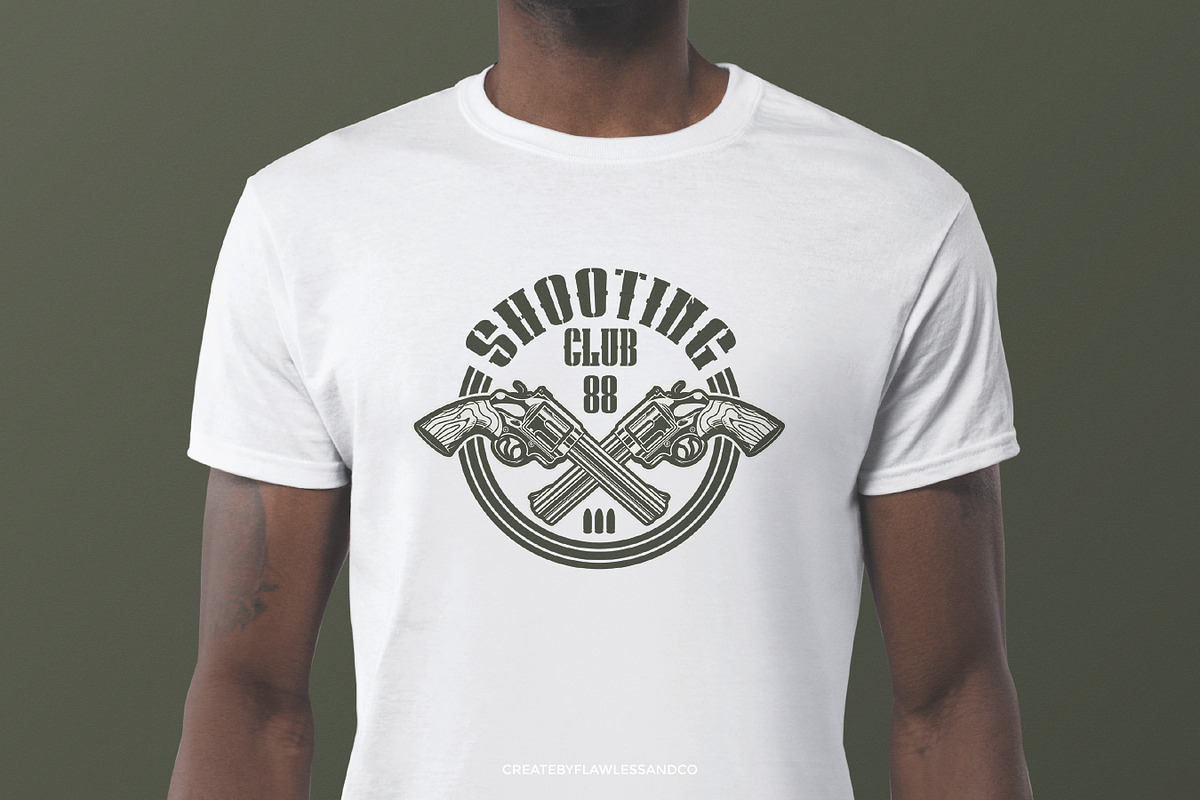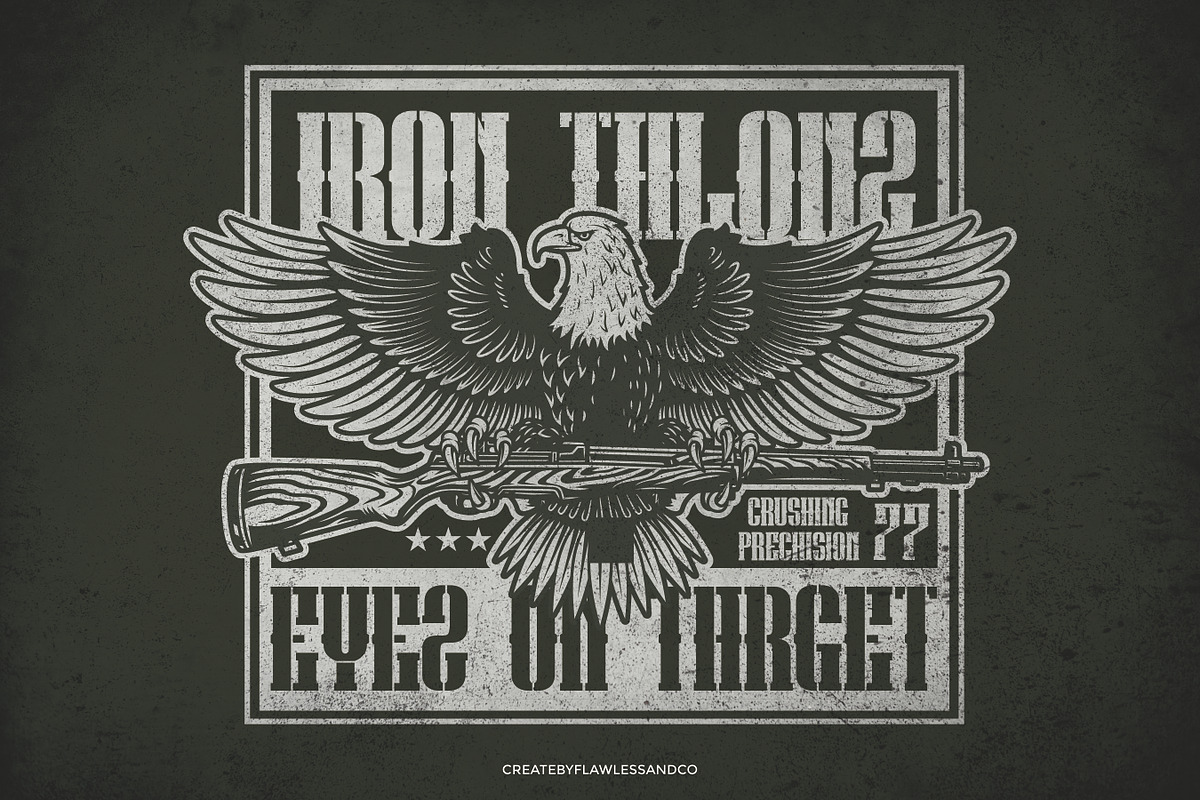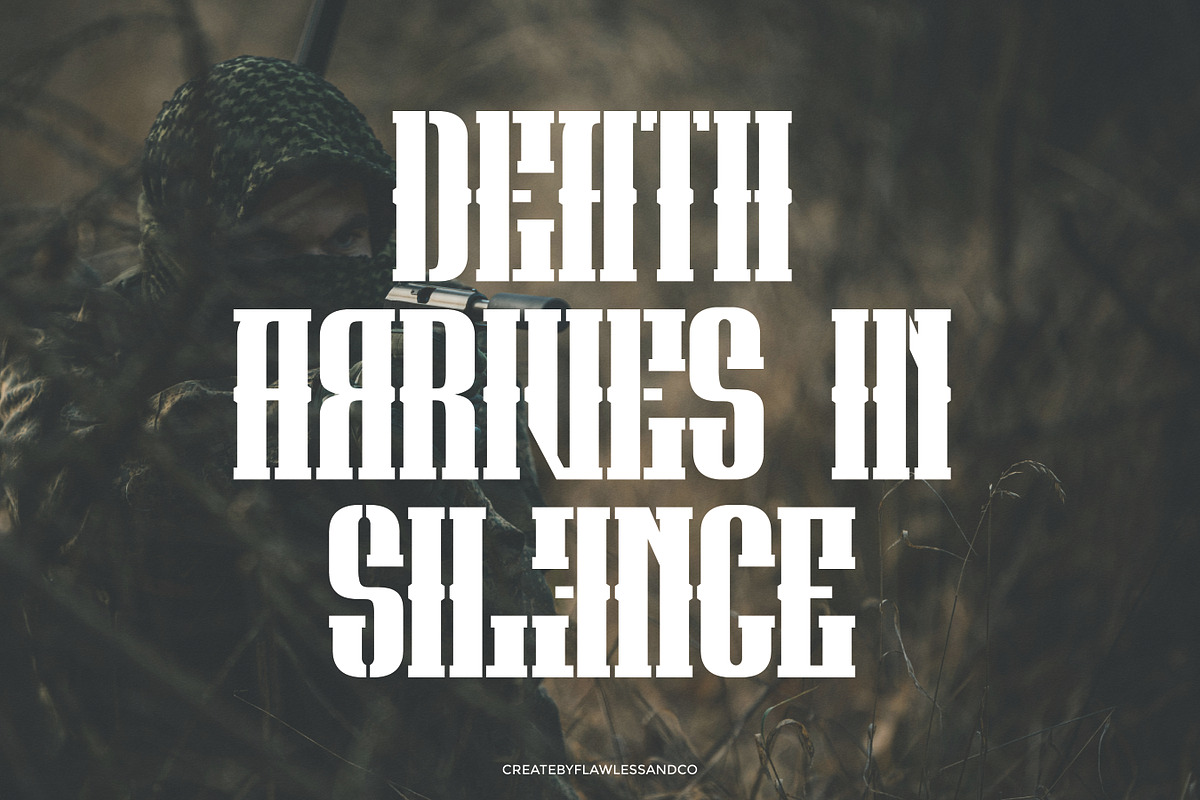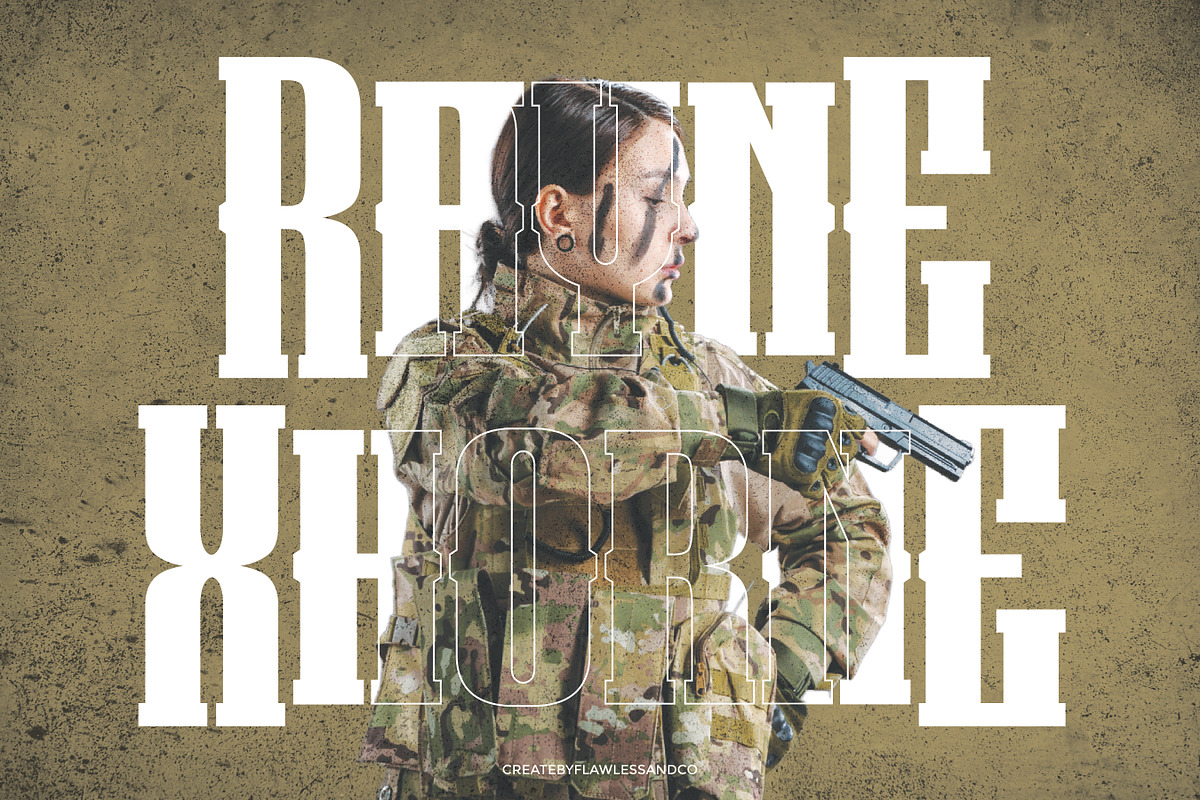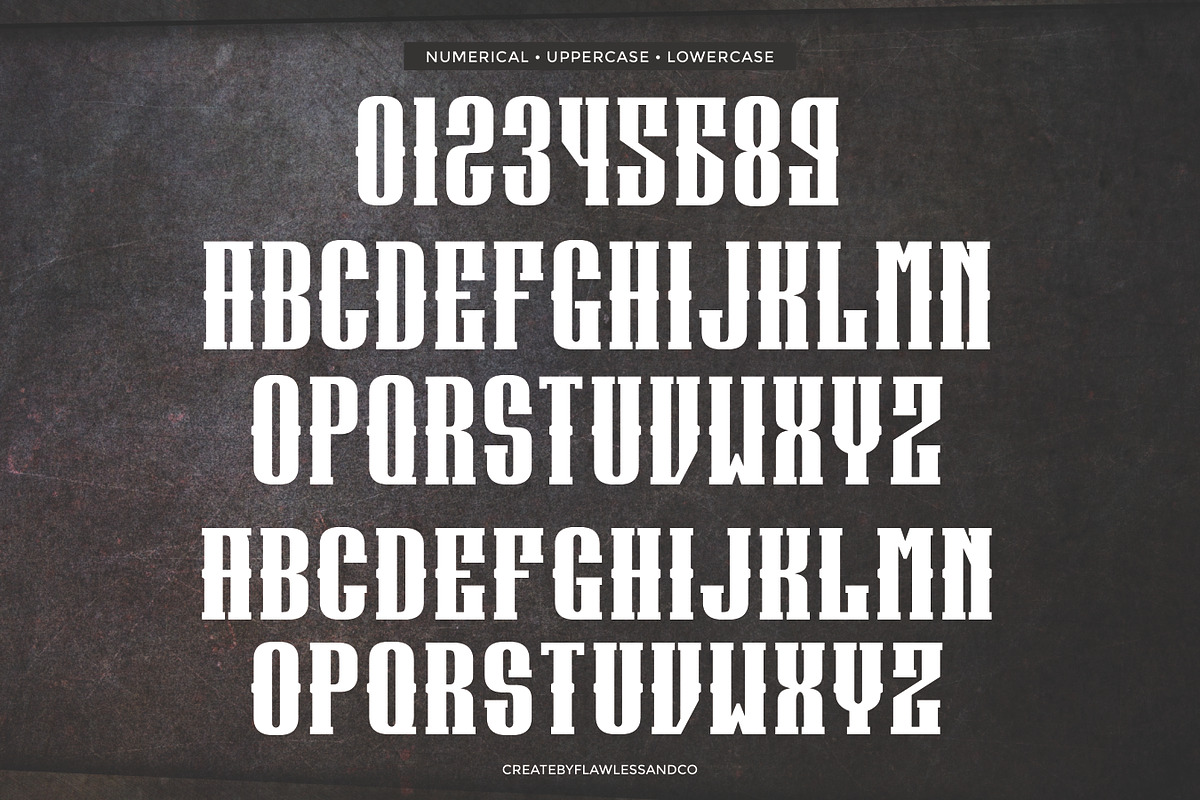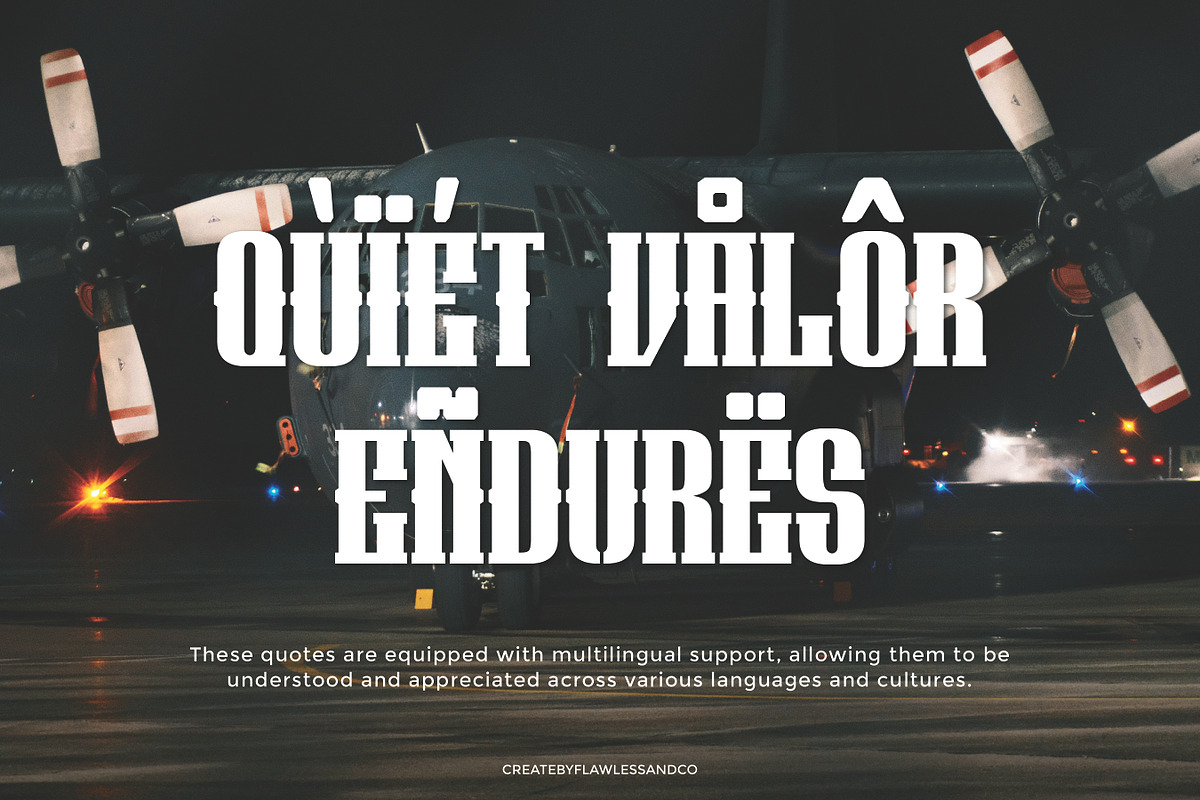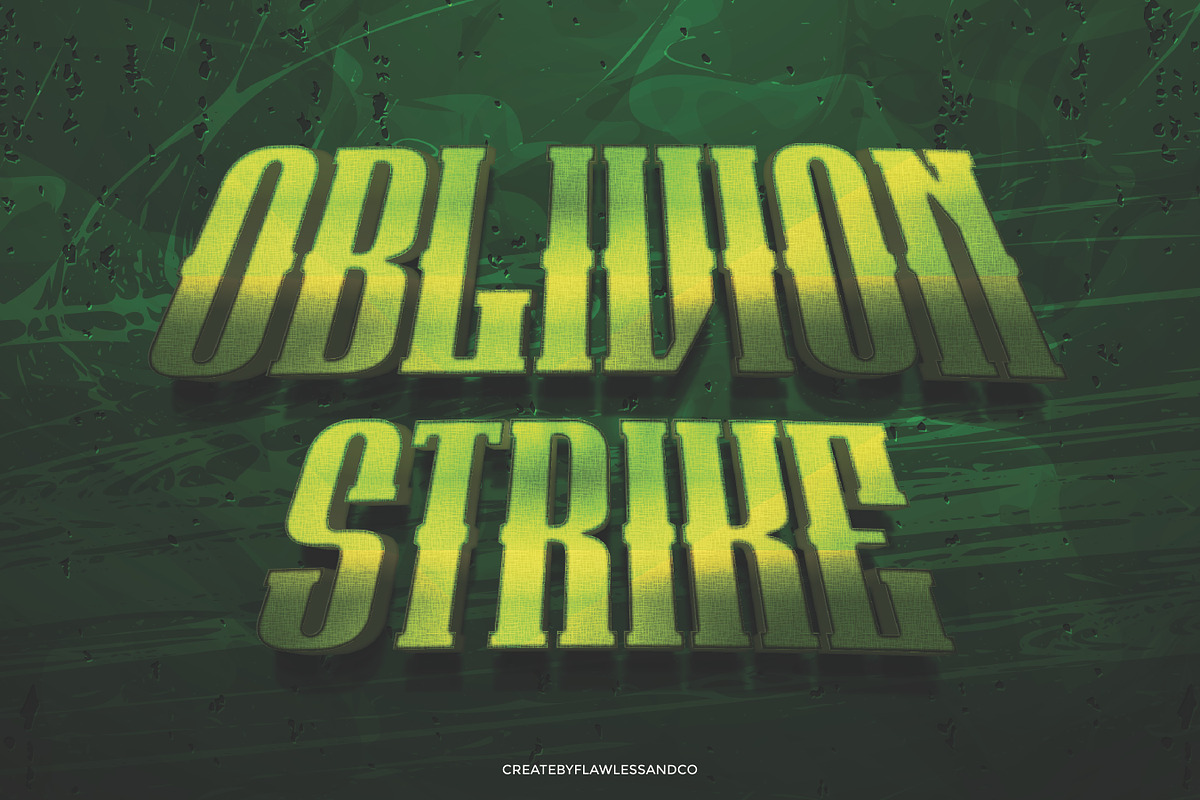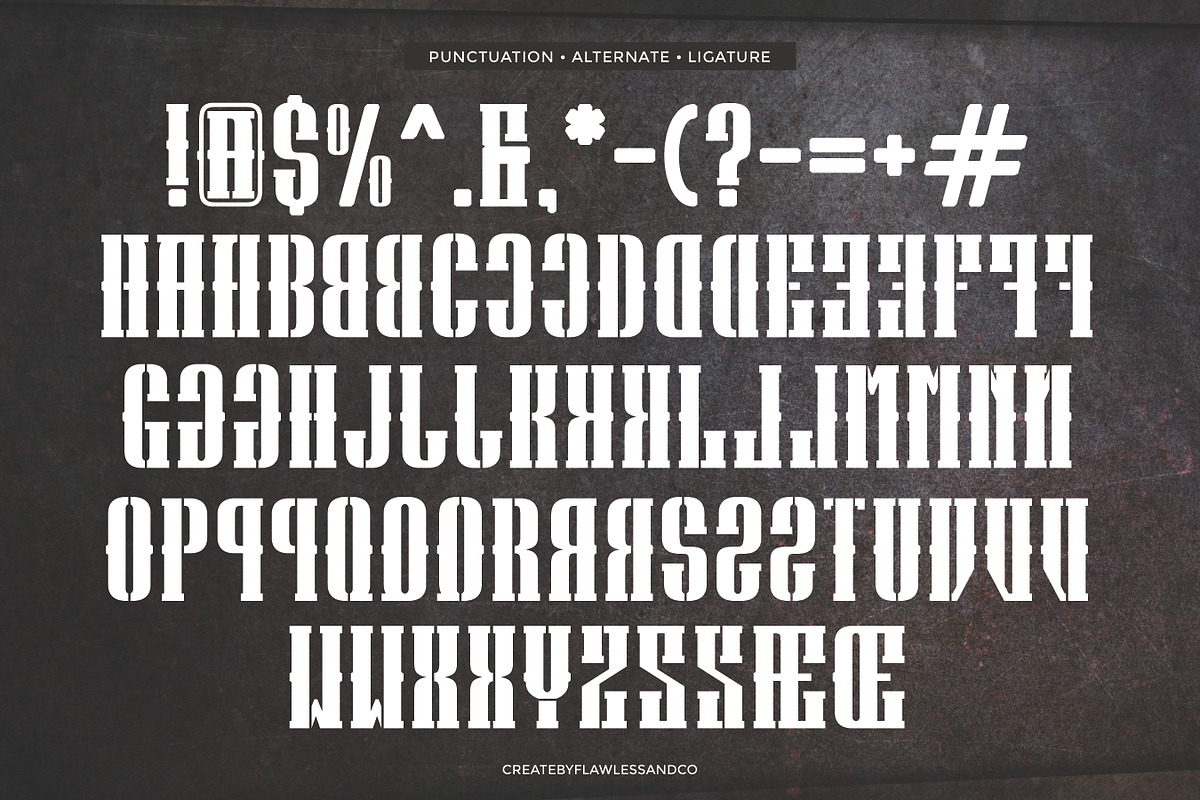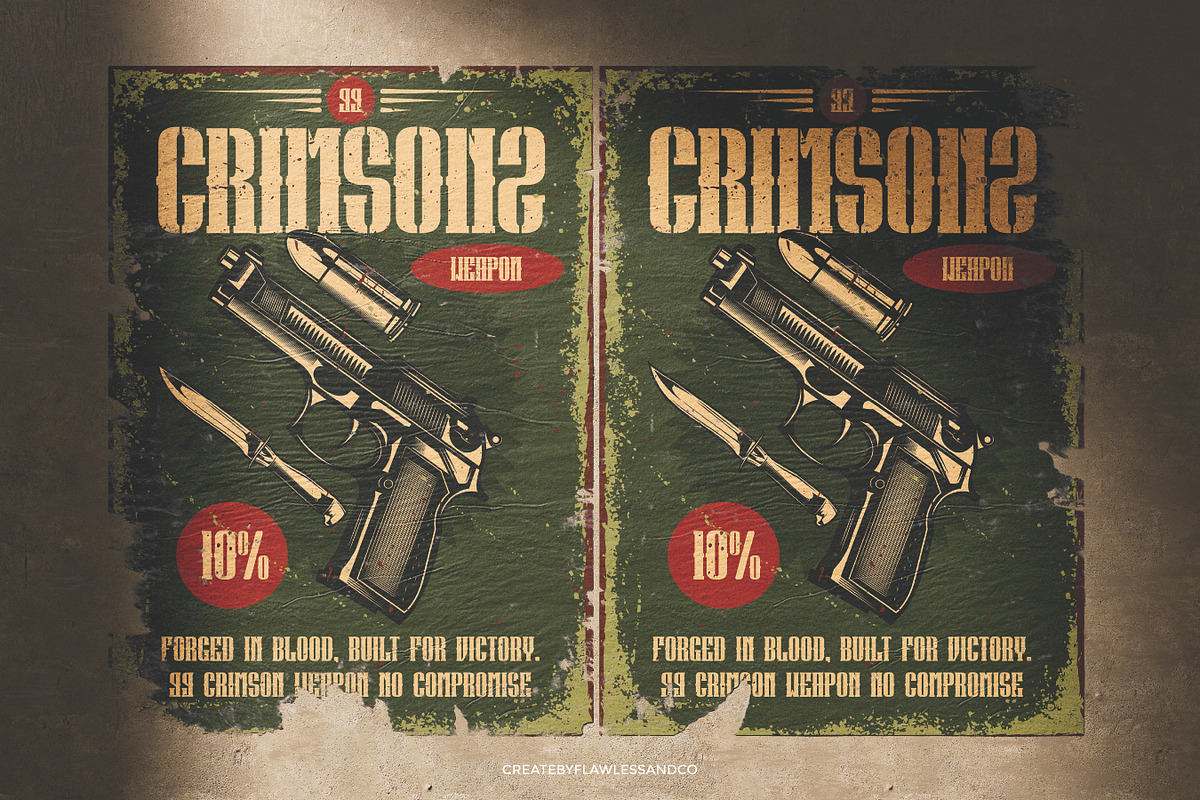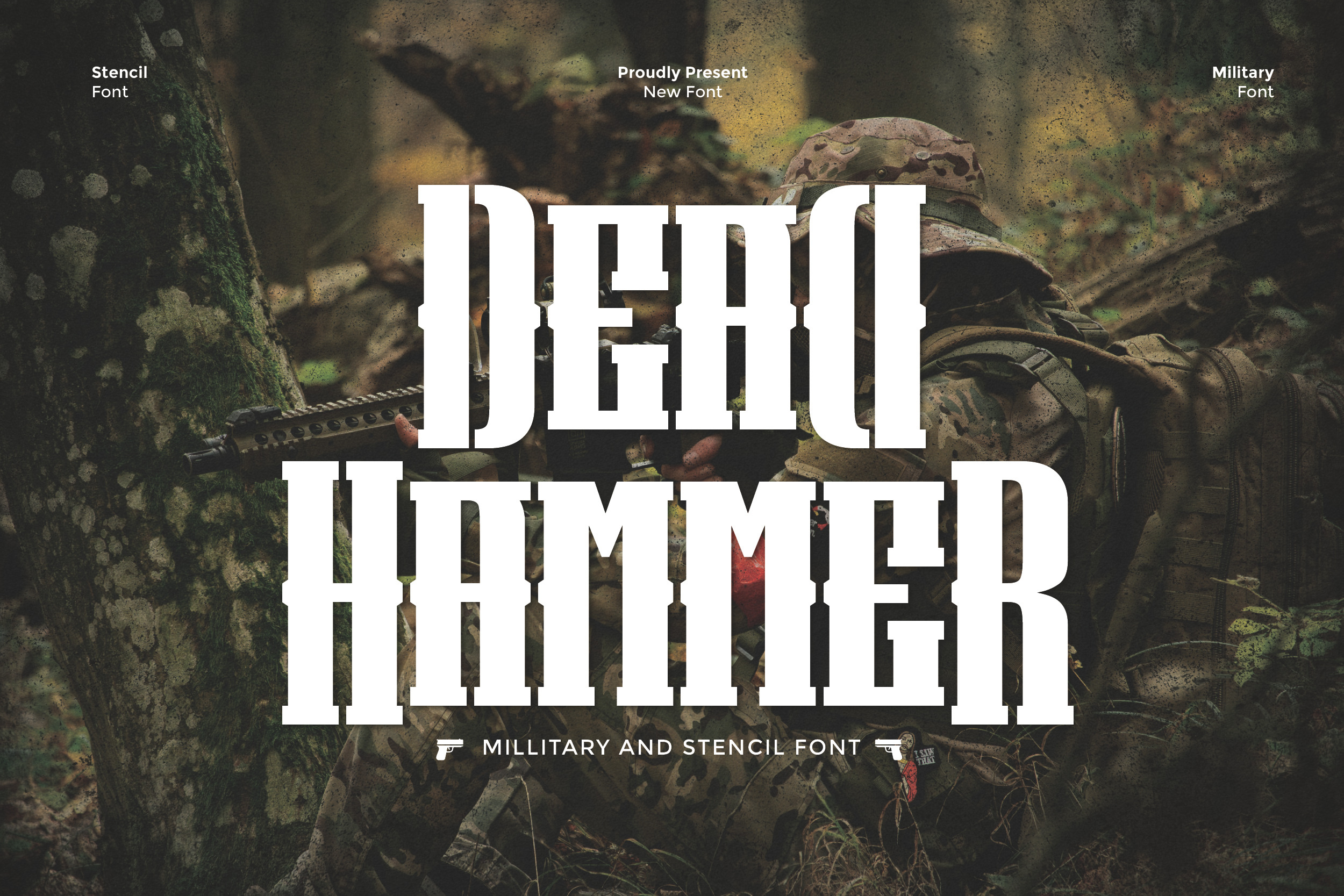
Deadhammer - Millitary Font
DEADHMMER - Is a Millitary Stencil Font
DEADHAMMER is a bold military and stencil font forged with power and precision. Inspired by tactical gear and battlefield grit, this typeface delivers a strong, masculine presence built for high-impact visuals. With sharp cuts, heavy strokes, and a raw, industrial edge, DEADHAMMER is made for those who want to command attention. Perfect for army-themed posters, survival gear branding, tactical apparel, or any design that needs authority and force. Whether you're creating a combat title, a military patch, or a gritty merchandise label — DEADHAMMER brings the firepower.
Who Should Use DEADHAMMER?
DEADHAMMER is made for bold creatives, tactical brands, and designers who want to convey strength, intensity, and rugged character. Ideal for:
- Military and tactical product designers
- Outdoor and survival gear brands
- Gamers and e-sport teams looking for a fierce identity
- Poster and merch creators in action, war, or combat themes
- Anyone seeking a powerful and commanding typeface for bold visual storytelling
A Must-Have Font for Branding Creators and Designers
DEADHAMMER is the perfect weapon in any designer’s arsenal—rugged, fearless, and packed with visual impact. Whether you're building a bold brand, crafting a striking logo, or designing gear with a military edge, this font commands attention and delivers unmatched strength.
Why Choose DEADHAMMER for Brand Projects?
DEADHAMMER brings raw power and toughness to your branding. With its bold strokes and rugged aesthetic, this display font is perfect for making fearless statements. Whether you're creating logos, merchandise, or promotional materials, DEADHAMMER ensures your brand looks strong, impactful, and unforgettable.
Suitable For:
- Streetwear and urban brand logos
- Gaming and esport designs
- Music and band merchandise
- Extreme sports branding
- Poster titles and bold headlines
- Social media graphics with strong vibes
- YouTube or streaming channel identities
- Packaging for edgy or alternative products